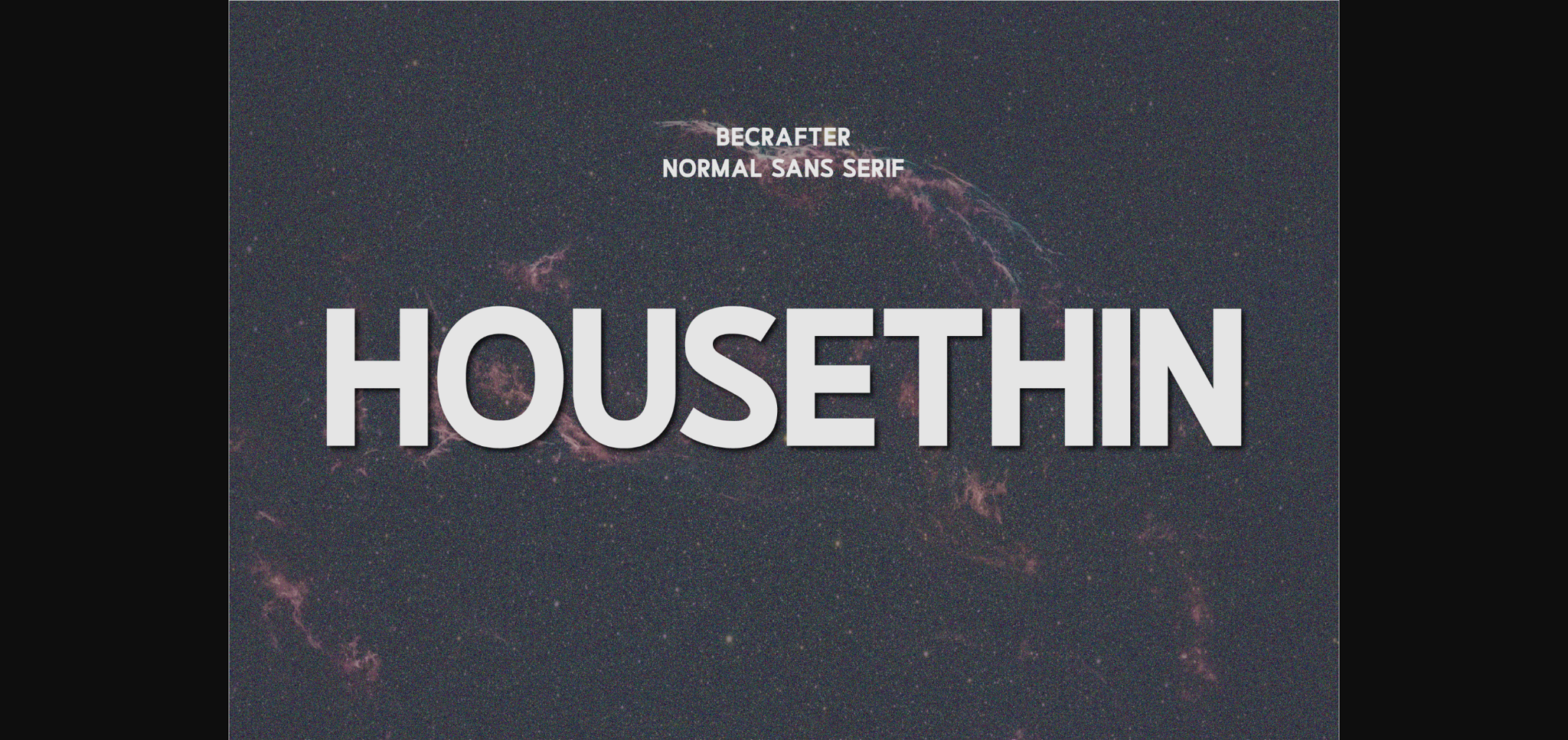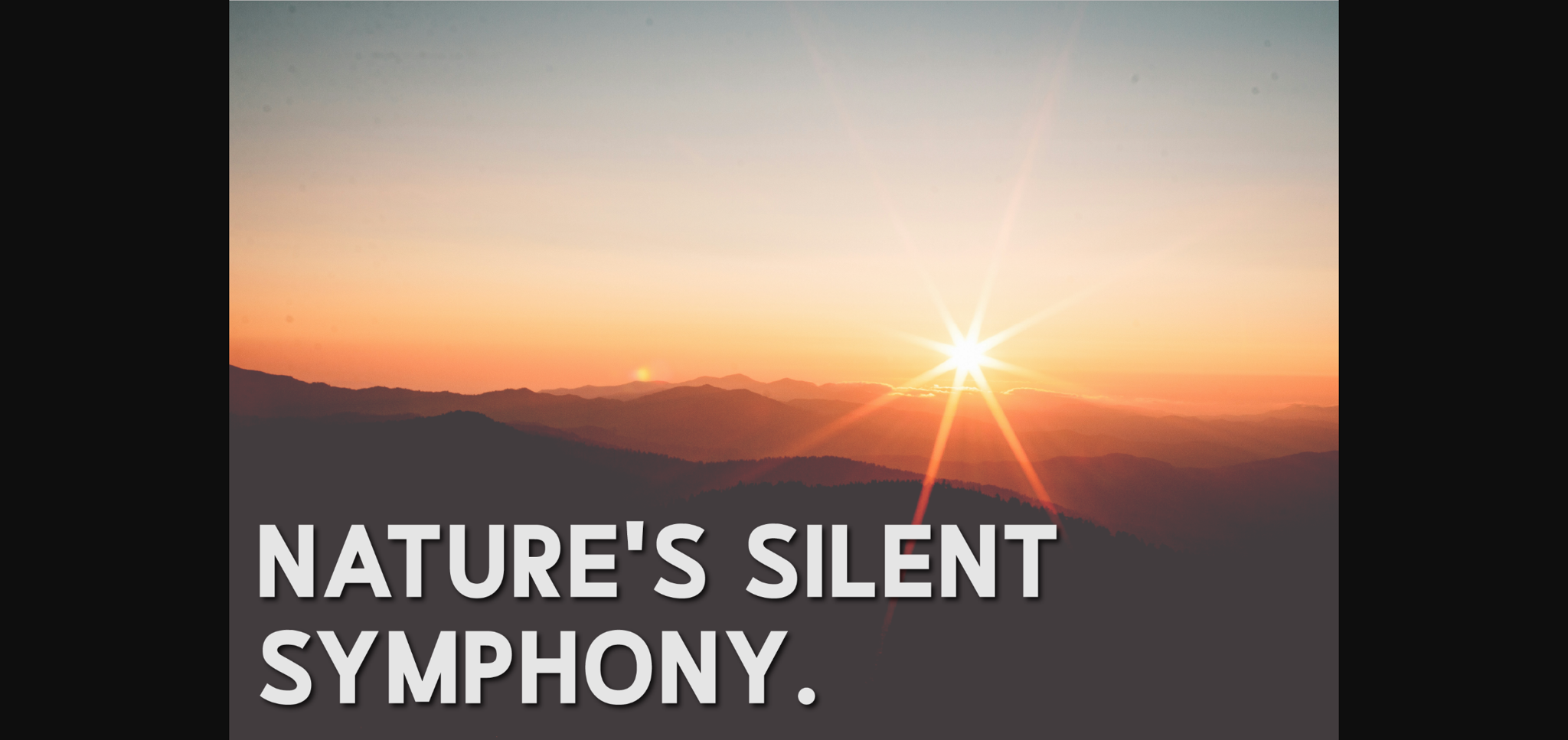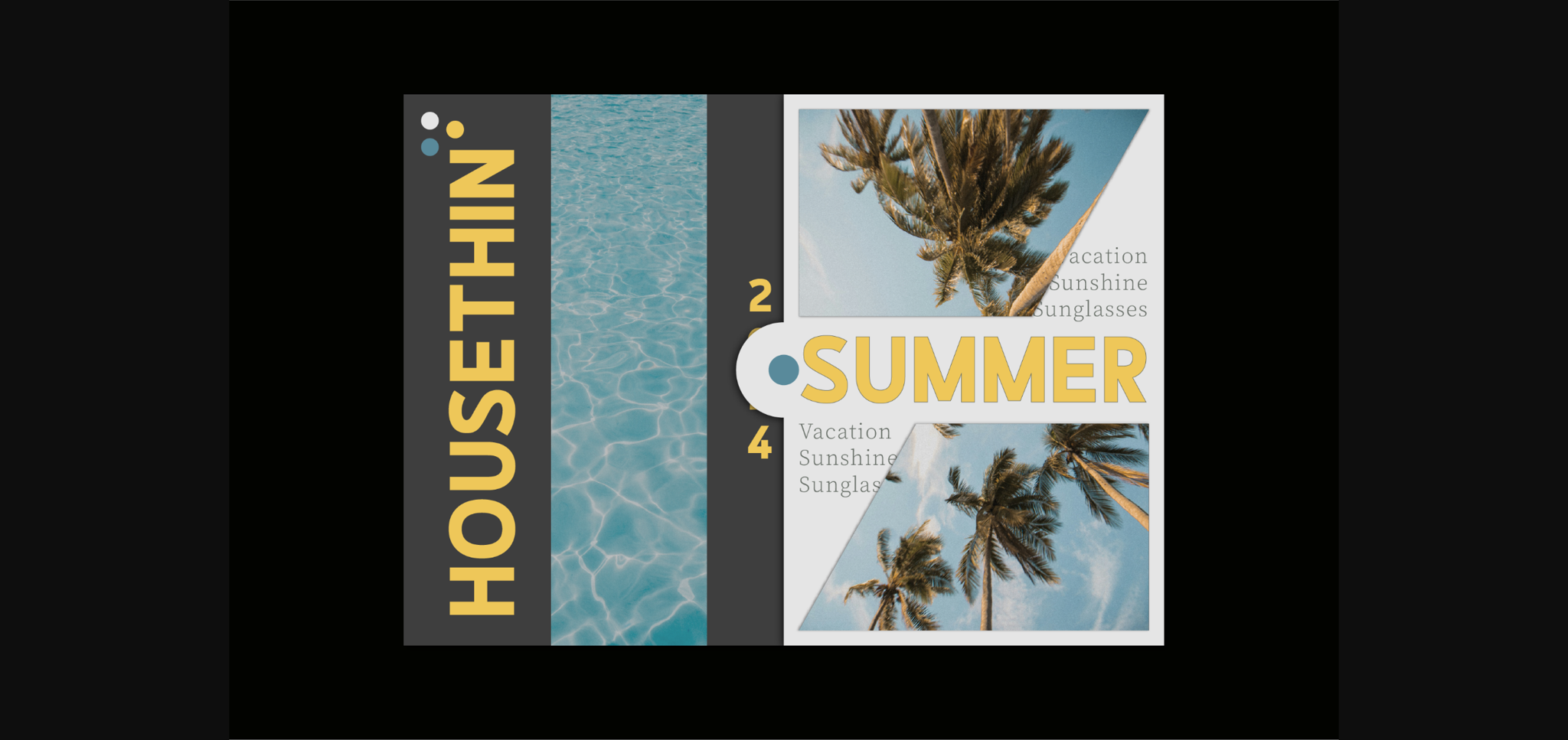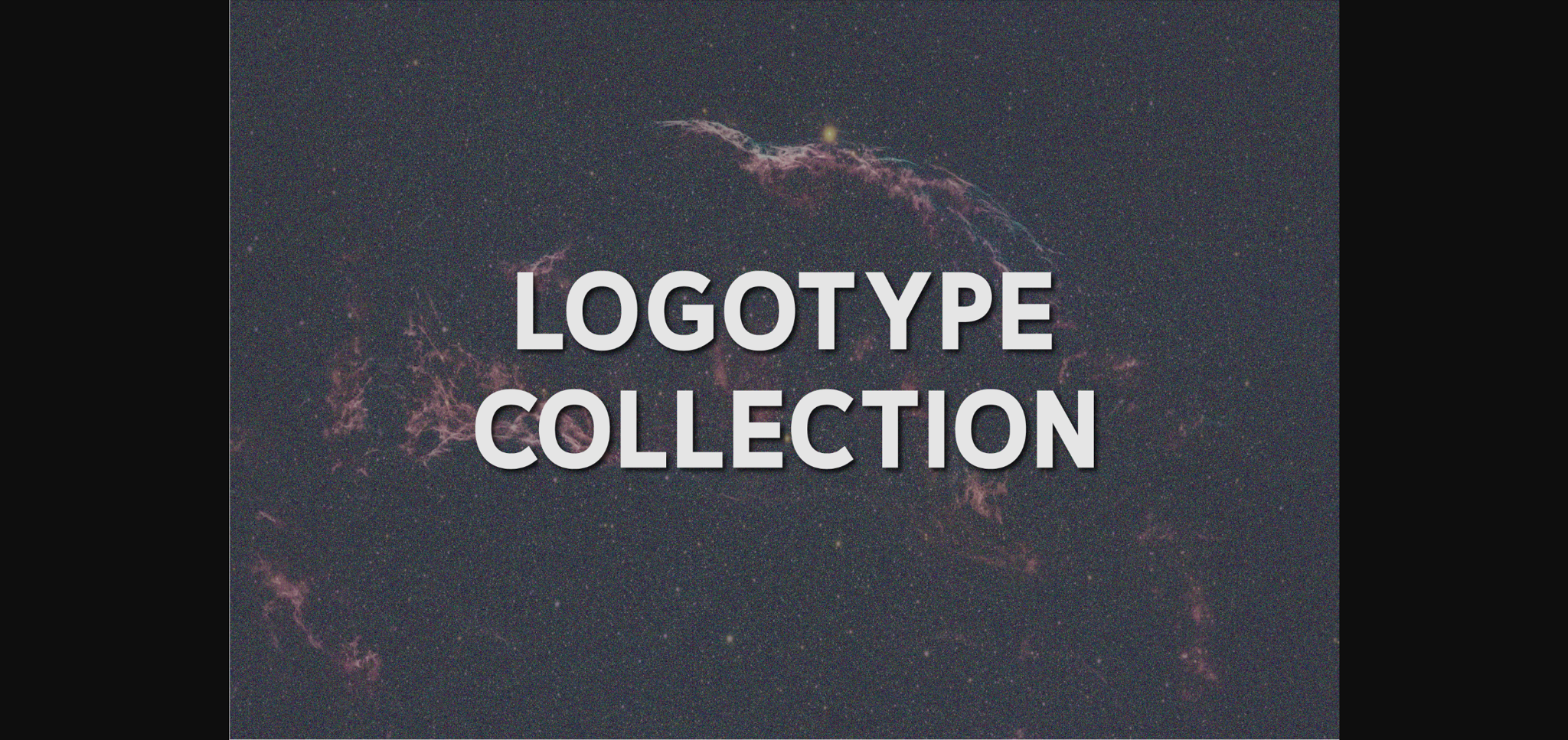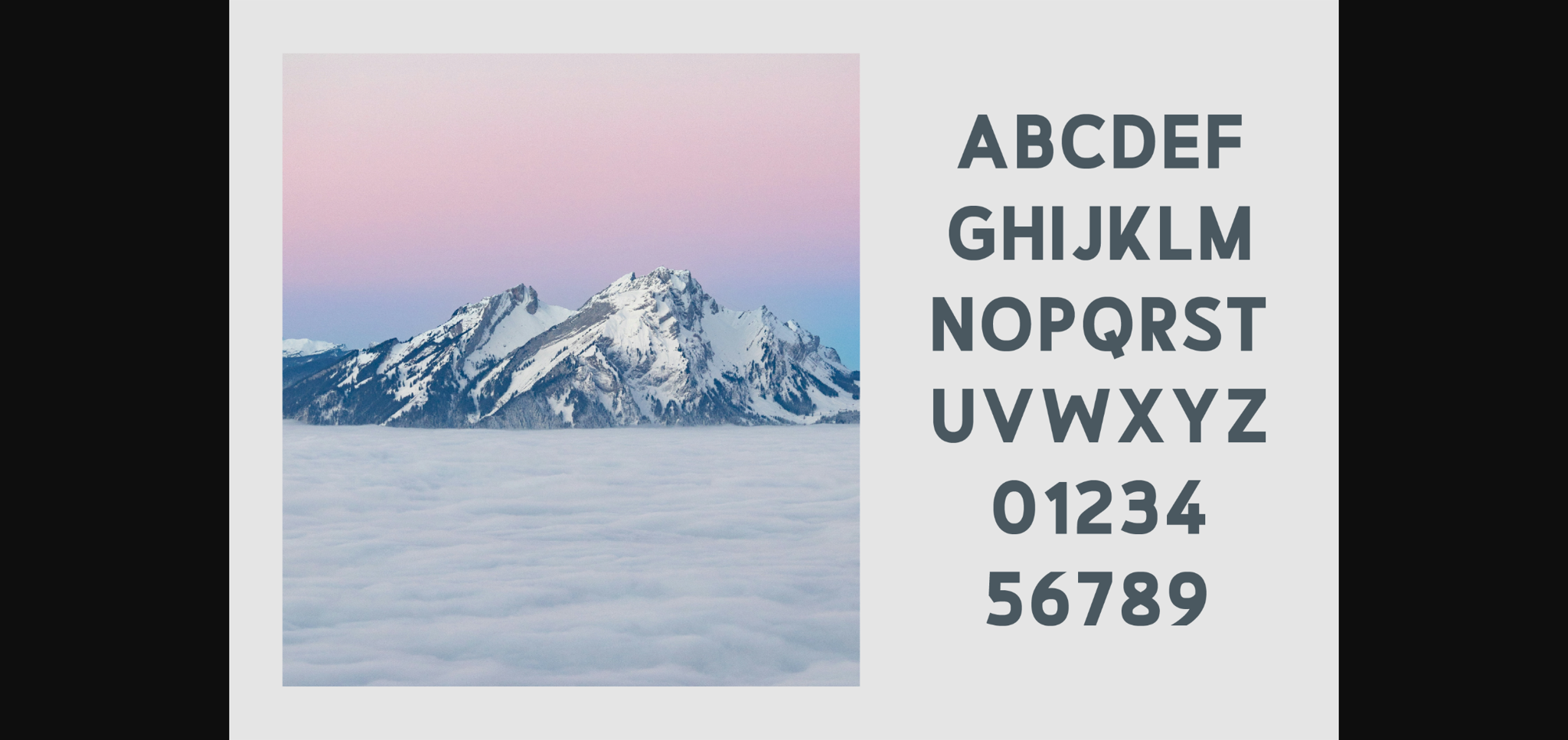
Housethin Font
About Housethin Font
Introducing Housethin – a daring sans-serif font that marries boldness with refinement. With its sophisticated sharp contours, Housethin exudes an aura of elegance that is sure to bring your designs to life. Available in both .ttf and .otf file types, it lends itself seamlessly to an array of applications. Whether you’re crafting a captivating magazine layout, a bespoke invitation, an evocative quote or a standout header, Housethin is the perfect choice. Designed to draw the eye, it’s ideal for any project that demands the viewer’s undivided attention. Elevate your designs with the unique charm and unwavering sophistication of Housethin.